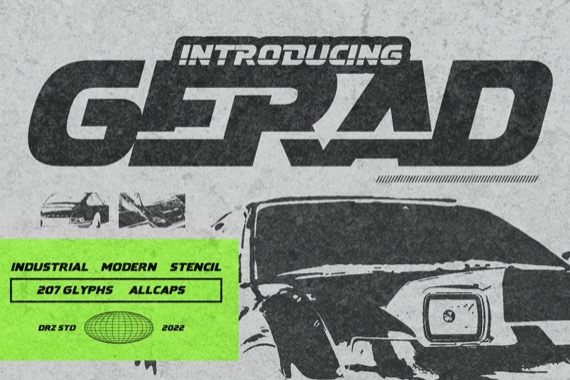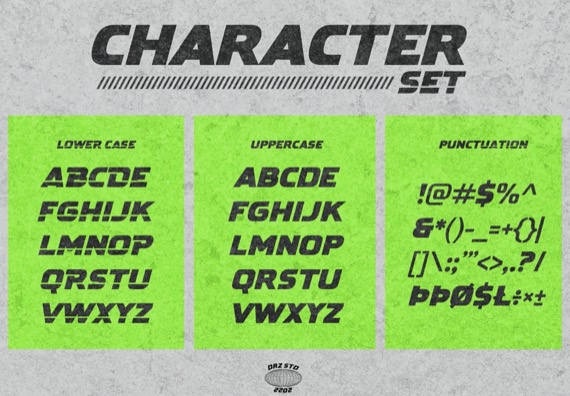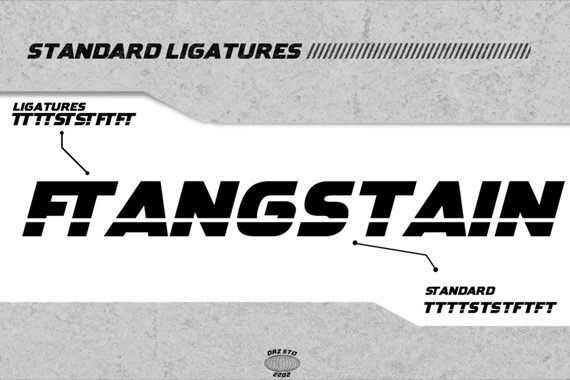
Introducing Gerad Font by Drizy Studio. It is an Industrial Modern Stencil typeface. Offering all the basic styles you will need for a modern theme of your project.
Gerad Display Font
Designer, Publisher: Drizy Studio